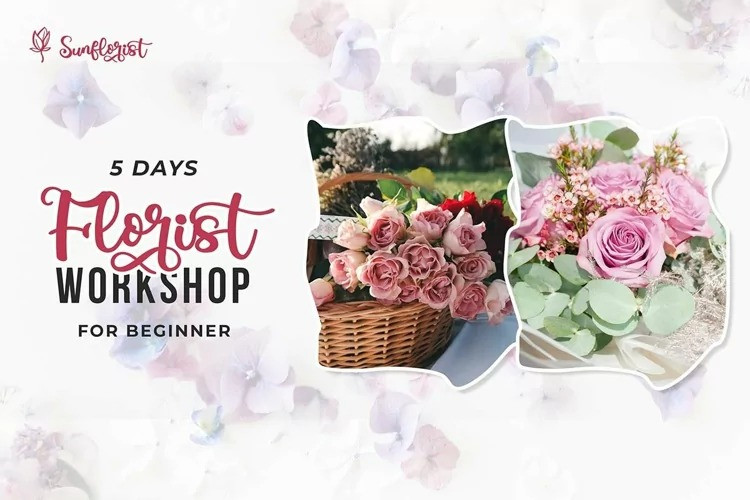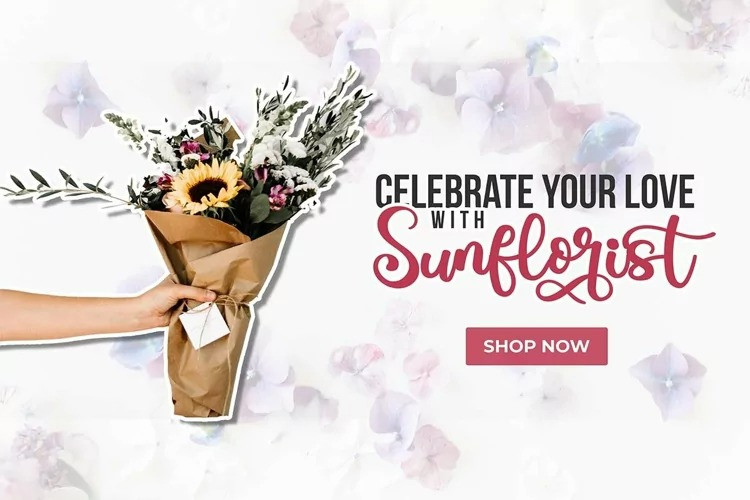
Grettana Script Font
Grettana Script Font is a handwritten script font with elegant touch, casual and lovely. It is perfect for logo, greetings, branding, quotes, prints, invitations and crafting. Grettana Script features Open type features, including ligatures and International support for most Western Languages is included.